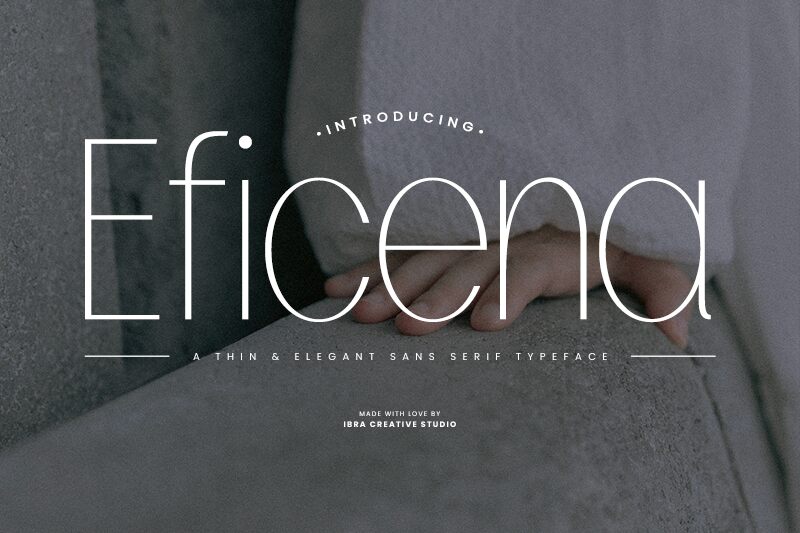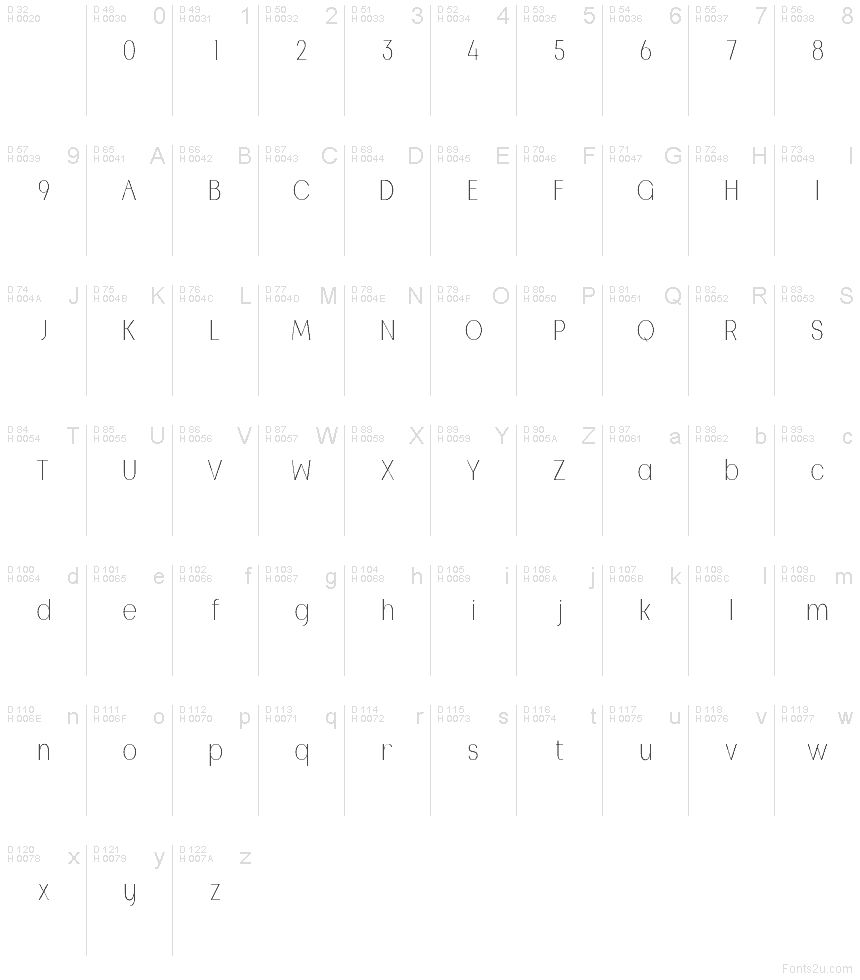
Eficena Personal Use Regular
Eficena font by Ibra Creative Studio is a free modern sans serif typeface. Its defining move is the whisper-thin stroke: crisp, needle-fine lines with generous counters give every word a breezy, high-fashion calm. Letters feel weightless yet precise, with smooth, glassy curves and clean verticals that stack beautifully in tight grids or generous white space.
Using Eficena, headlines slip in with a cool, editorial poise—great for fashion branding, magazine covers, beauty packaging, posters, portfolio websites, and luxe social posts. The airy rhythm holds up at large sizes; add a touch of tracking to let it glow. Pair this free font with a sturdy humanist sans or a warm serif for body text to keep layouts readable and refined.